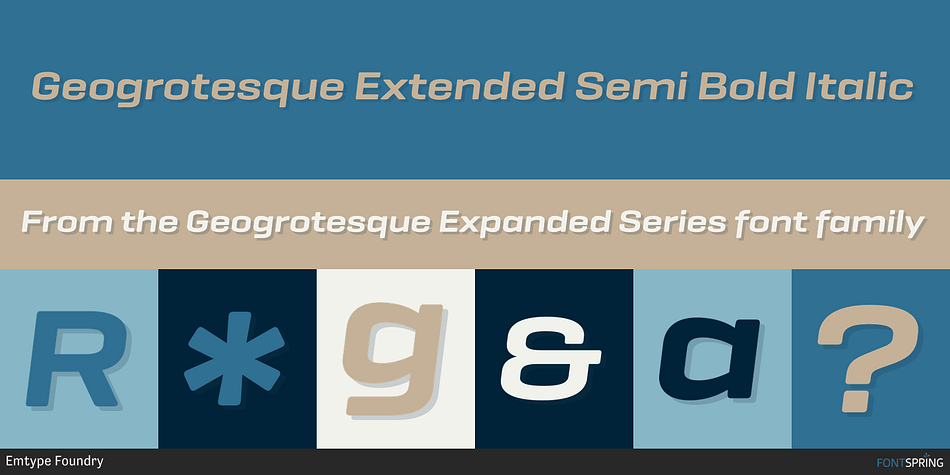
Designed by Eduardo Manso, Geogrotesque Expanded Series is a display sans and sans serif font family. This typeface has forty-two styles and was published by Emtype Foundry.
Geogrotesque Extended Semi Bold Italic
Geogrotesque Expanded Series comes in three widths: Wide, Extended and Expanded, that go between 120% and 200% of the normal width. Since the original Geogrotesque is slightly condensed, the Wide family becomes a good option for texts. Whereas the Extended and Expanded are ideal for display sizes. With the inclusion of the Expanded Series and the preceding Condensed ones, the Geogrotesque super family is now a complete widths system.